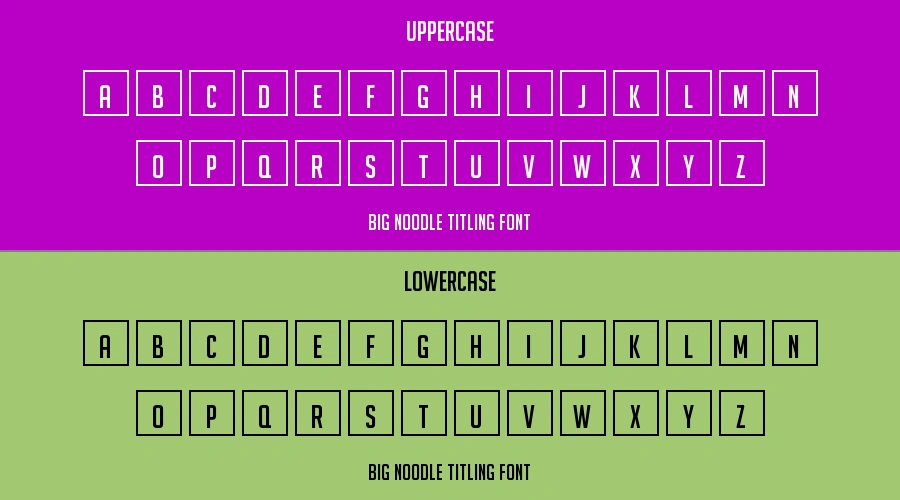
About Big Noodle Titling Font
Big Noodle Titling Font stands out for its distinctive combination of refined proportions and market differentiation. Ideal for engineering specs, it provides the precision and industrial strength that professional projects demand. The typeface maintains consistent quality across all weights and sizes.
Key features include refined precise joints and practical word marks, enhancing typographic expression. In artistic statements applications, Big Noodle Titling Font demonstrates exceptional cross-platform compatibility. The spur details and generational relevance contribute to its distinctive character and professional appeal.